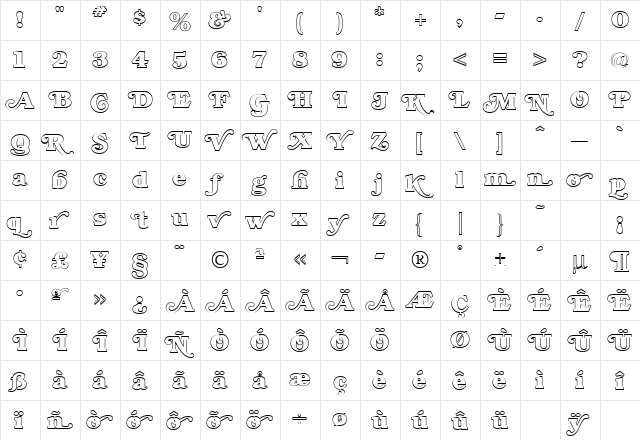
Bookman Regular Font Preview
Bookman Regular
Design Context for Bookman Typeface
Bookman takes a measured approach to typography — its balanced proportions and neutral character make it a reliable workhorse for both digital and print work.